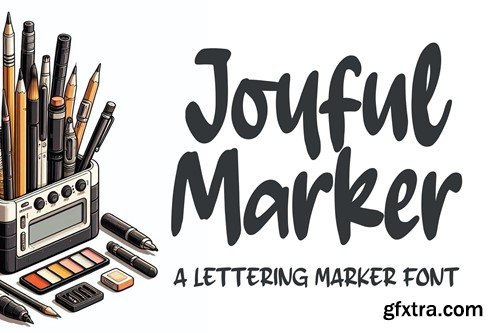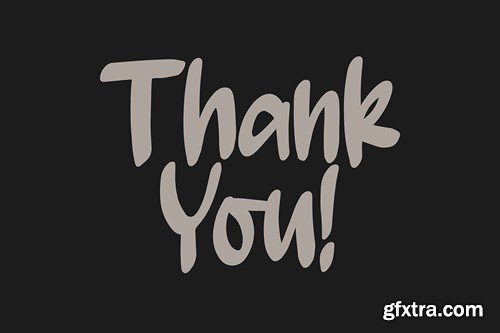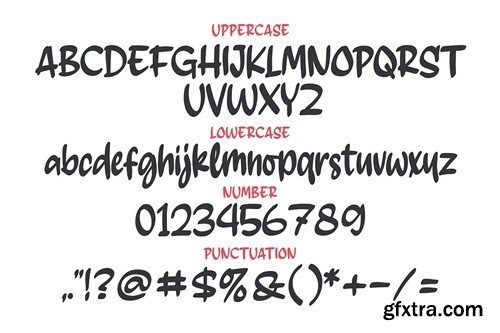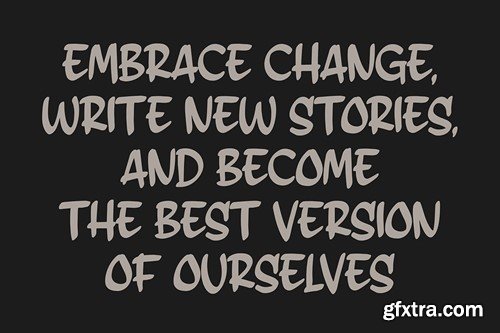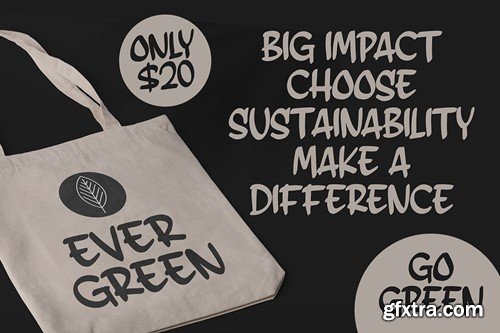
"Joyful Marker" is a vibrant and expressive font that draws inspiration from the casual yet lively strokes of a marker pen. Crafted with a unique blend of hand writing styles, including typewriter, cursive, bouncy, and playful elements, this font emanates a delightful charm. The fusion of these styles results in a versatile typeface that seamlessly balances elegance and modernity. Characterized by bold, rounded, and cartoon-like features, "Joyful Marker" stands out with its distinctive visual appeal. The boldness of the letters enhances readability, making it an ideal choice for various design applications. The rounded edges add a touch of friendliness, while the cartoon-inspired design injects a playful spirit into the overall aesthetic. This font is well-suited for a range of purposes, including logotypes, body text, branding, and corporate materials. Its adaptability ensures that it can convey a professional and contemporary image, making it a perfect choice for projects that require a dynamic and engaging typographic solution. Embrace the lively energy of "Joyful Marker" to elevate your designs and captivate your audience.